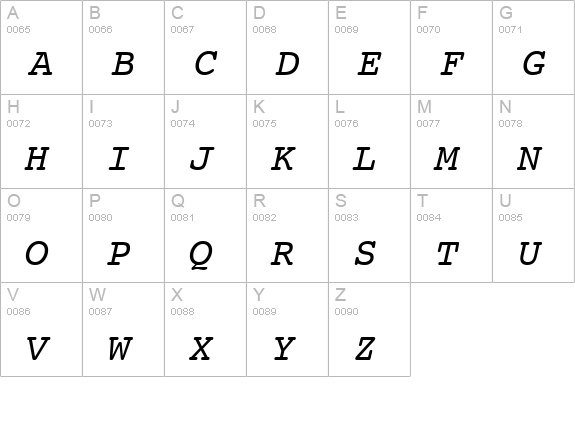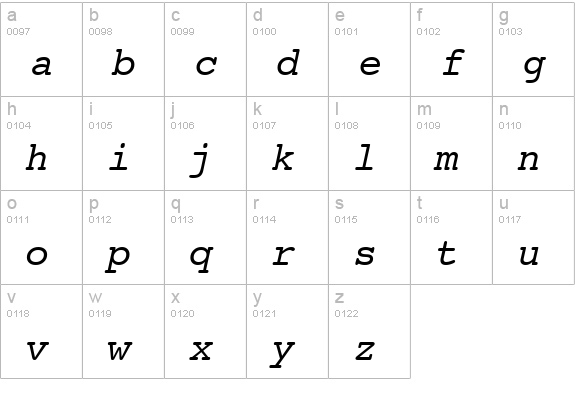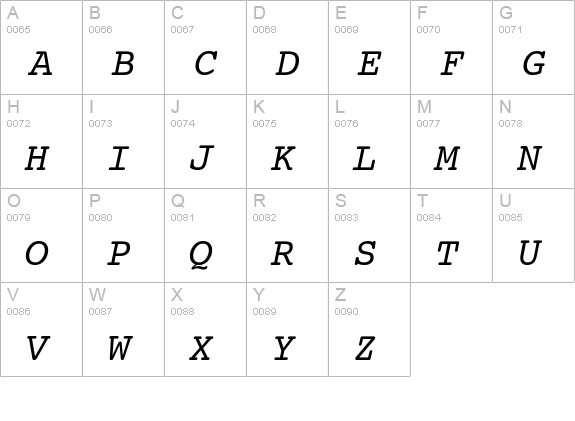
Courier Italic SWA Font Details
Courier Italic SWA is a distinctive, italic variant in the Courier typeface family \xE2\x80\x94 well suited to design and typography projects.
Courier Italic SWA is a sleek and stylish font that combines the classic Courier style with a modern italic twist. Its slanted letters give a sense of movement and sophistication, making it perfect for adding a touch of elegance to any project. The smooth curves and sharp angles of Courier Italic SWA create a unique visual appeal that is sure to make your designs stand out. What sets Courier Italic SWA apart is that it is not only visually striking, but also completely free to use. Whether you're working on a personal project or a professional design, this font is the perfect choice for adding a touch of sophistication without breaking the bank. You can easily download Courier Italic SWA for free at FontsMarket.com, making it accessible to anyone looking to elevate their designs with a stylish and modern font choice.